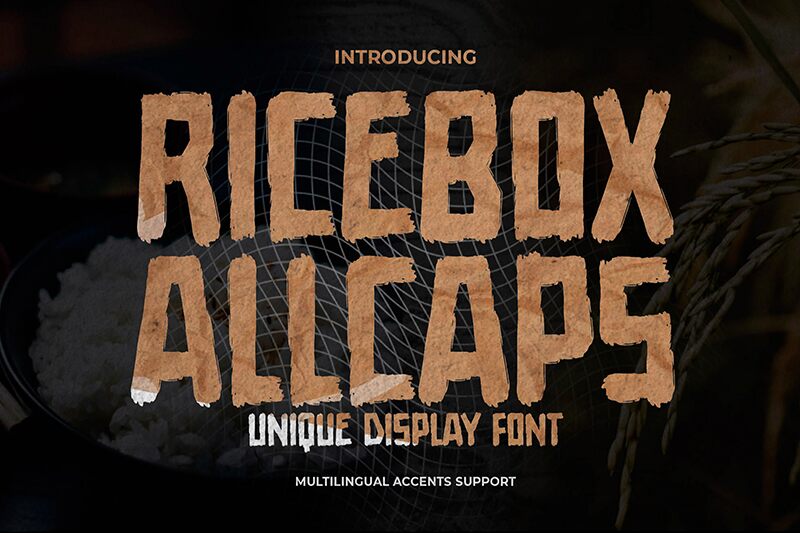
Ricebox Allcaps captivates with its bold brush strokes and striking condensed form, exuding a vibrant, dynamic energy. The hand-crafted style imbues each letter with a sense of personality and movement, making it perfect for designs that seek to convey creativity and authenticity.
Its aesthetic appeal lies in the dramatic interplay of thickness and texture, drawing the eye while maintaining clarity. This font is ideal for branding projects, posters, or social media graphics where an expressive statement is essential.
Ricebox Allcaps not only commands attention but also adapts effortlessly across various contexts-from contemporary art to trendy culinary ventures-making it a versatile choice for any design that calls for flair and individuality.